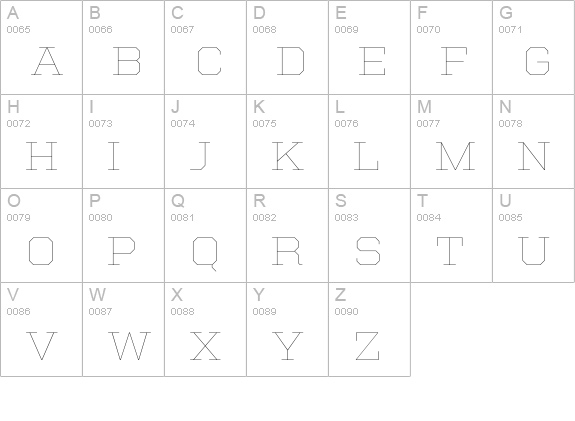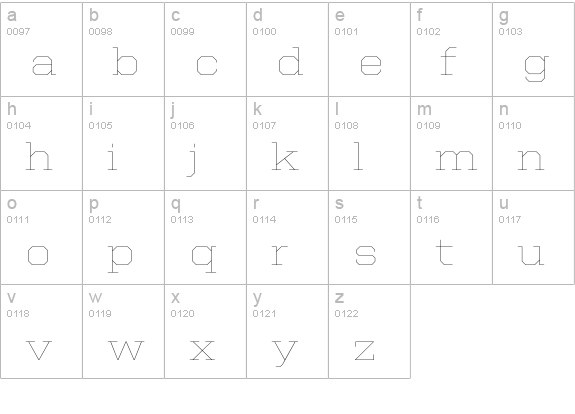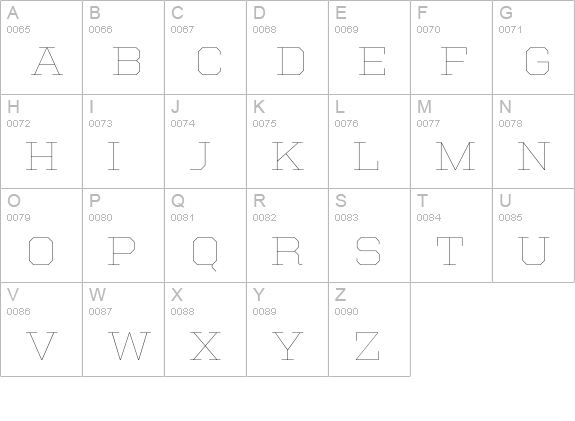
United Serif SemiExt Thin Font Details
United Serif SemiExt Thin is a delicate, low-contrast variant in the United typeface family \xE2\x80\x94 well suited to fashion editorial, minimal branding, and high-contrast display.
United Serif SemiExt Thin is a stunning font that effortlessly combines classic elegance with a modern twist. Its slender and refined letterforms exude a sense of sophistication, making it the perfect choice for projects that require a touch of finesse. This font features a semi-extended width, giving each character a graceful and elongated appearance. The thin strokes add a delicate and graceful touch, creating a harmonious balance between its boldness and subtlety. United Serif SemiExt Thin is a versatile typeface that will elevate any design, whether it be for branding, advertising, editorial, or web design. One of the most remarkable aspects of United Serif SemiExt Thin is that it is free to download at FontsMarket.com. This means that designers, creatives, and typographers can easily access this exceptional font without any cost. Its availability for free ensures that everyone can enjoy its beauty and utilize it in their projects, regardless of their budget. The clean and precise letterforms of United Serif SemiExt Thin make it highly legible, even at smaller sizes. Its crisp details and impeccable spacing make it an excellent choice for body text, ensuring that readers can effortlessly consume content without any visual distractions. United Serif SemiExt Thin also offers a wide range of language support, making it accessible to a global audience. Whether your project requires English, French, Spanish, German, or any other language, this font has got you covered. With its timeless elegance and versatility, United Serif SemiExt Thin is a font that will undoubtedly enhance the visual impact of any design. Download it for free at FontsMarket.com and unlock the potential to create stunning and captivating typography that will leave a lasting impression.